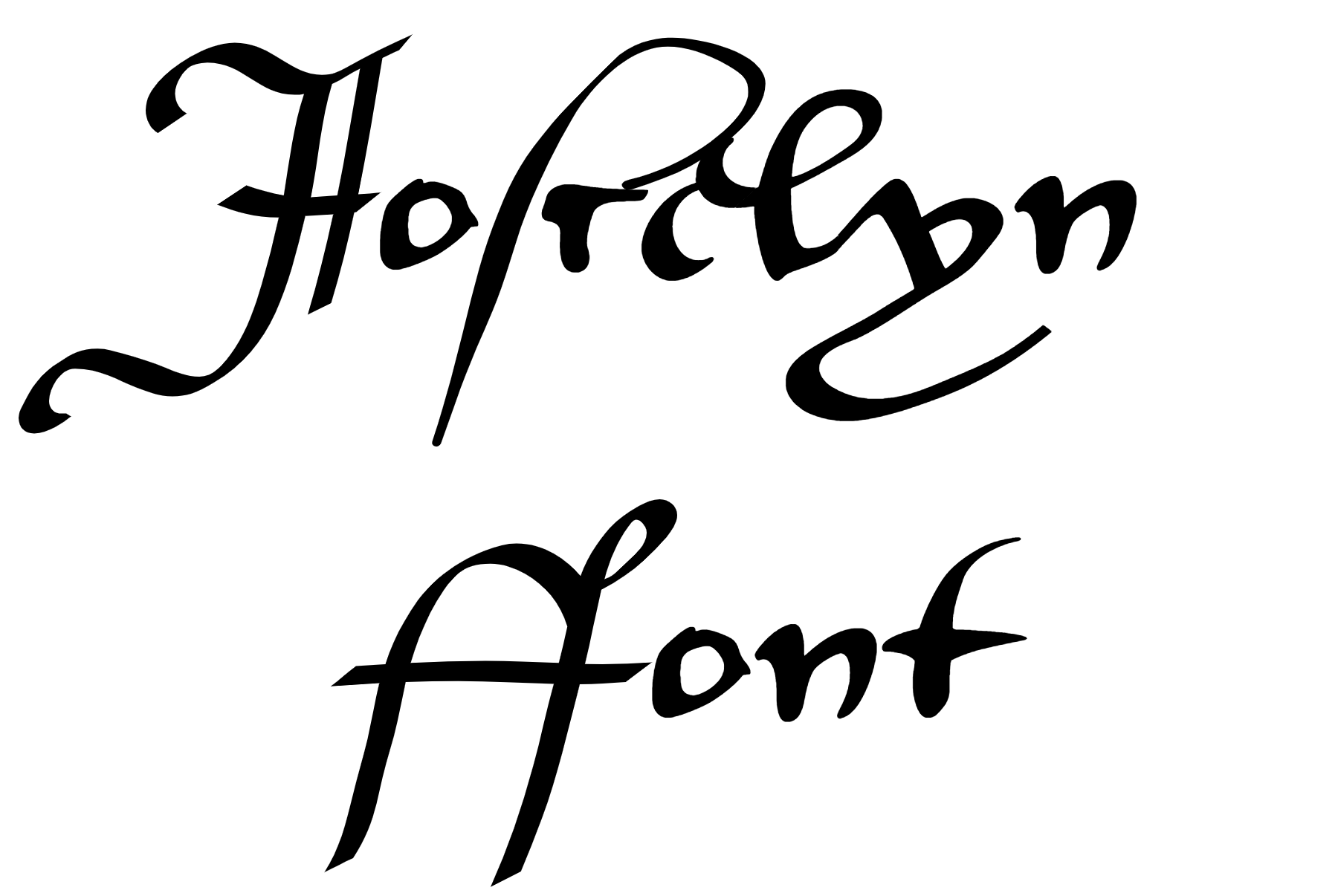
Joscelyn
- Designer: Peter S. Baker
- Glyphs: 613
- OpenType features: Ligatures and contextual alternates
You get every letter from A to Z in both cases and all the numbers from 0 to 9, which means Joscelyn can handle full sentences, dates and prices. Everyday marks like &, !, ? and @ are there too. Thanks to its accented letters, it also works for Spanish, French, German, Portuguese and Italian, not just English.
Ligatures and Smart Letters in Joscelyn
Ligatures and contextual alternates switch on by themselves: some letter pairs join into one shape and letters change to fit their neighbours, so repeated letters don't look copy-pasted. This works automatically in most design apps and modern browsers.
Where Joscelyn Works Best
Joscelyn is a natural fit for posters, logos and eye-catching headlines. Its lowercase letters are small compared to the capitals, so set it a size or two bigger than usual. Use it for one standout word or headline and let simpler fonts handle the rest.
Joscelyn was designed by Peter S. Baker. The copyright line inside the font is dated 2020.
Yes. Joscelyn has ligatures that turn on by themselves in most design apps and browsers, so you don't need to do anything special.
Yes. Joscelyn includes the accented letters needed for Spanish, French, German, Portuguese and Italian, so it works for more than just English.